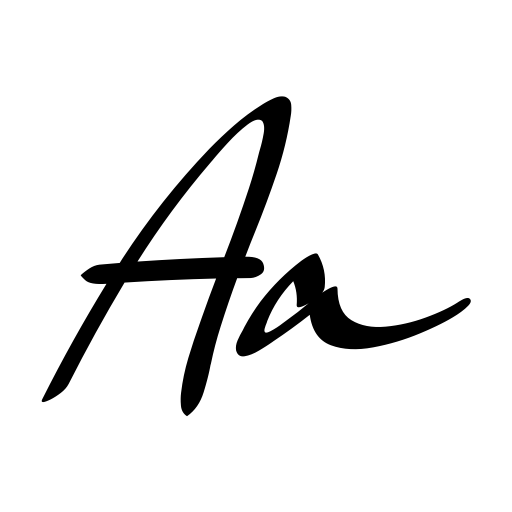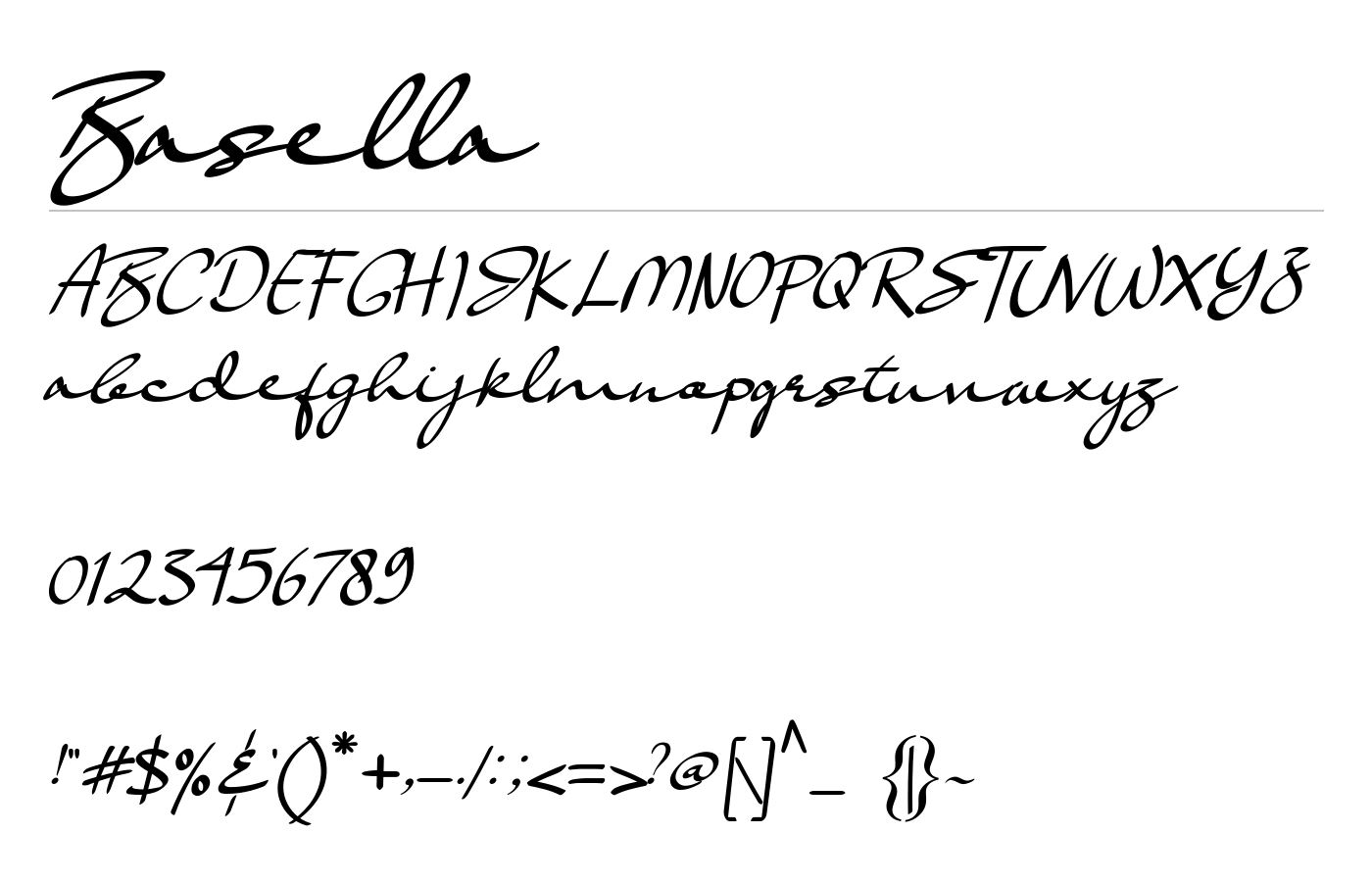
Basella is a graceful and flowing script font that captures the elegance of handwritten calligraphy with its smooth, connected strokes and moderate contrast. Its light, slightly condensed letterforms and distinctive uppercase characters create a refined and stylish feel, making it ideal for sophisticated branding, invitations, and elegant editorial design. This font works best in uses where a personal, artistic touch is desired, lending warmth and class to logos, packaging, and headlines.
Basella Font
About Basella Font
| Font family | Basella Font |
| Designer | DENIS |